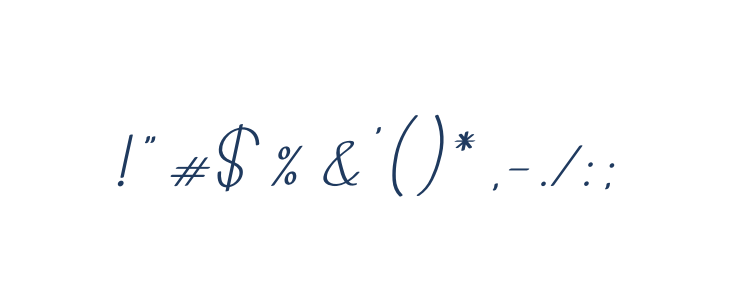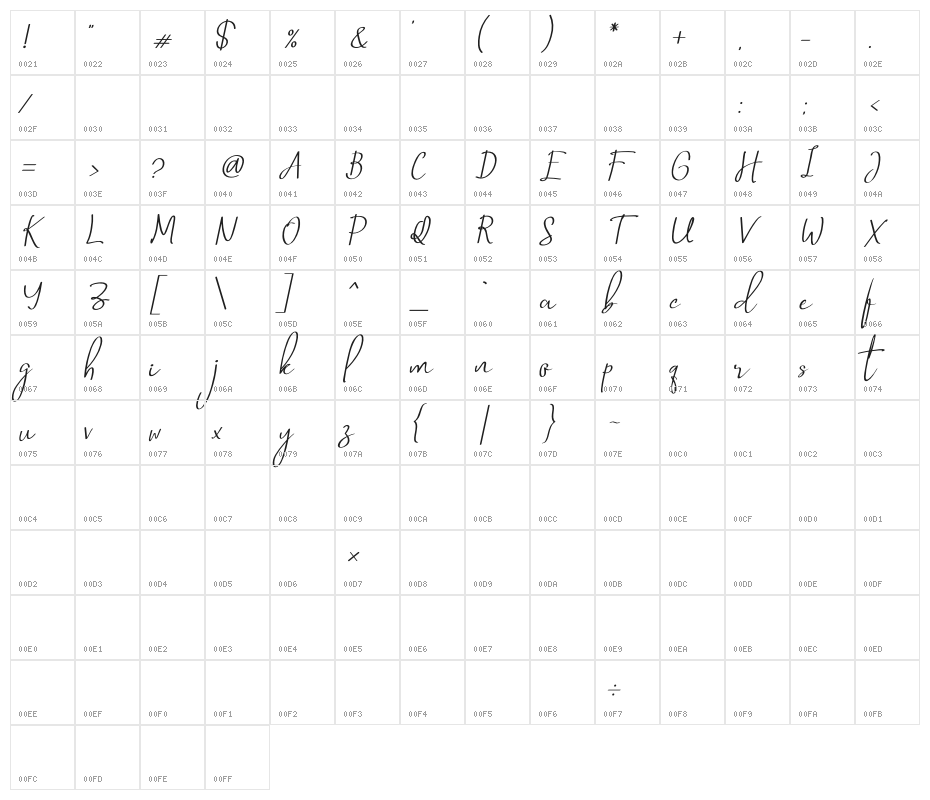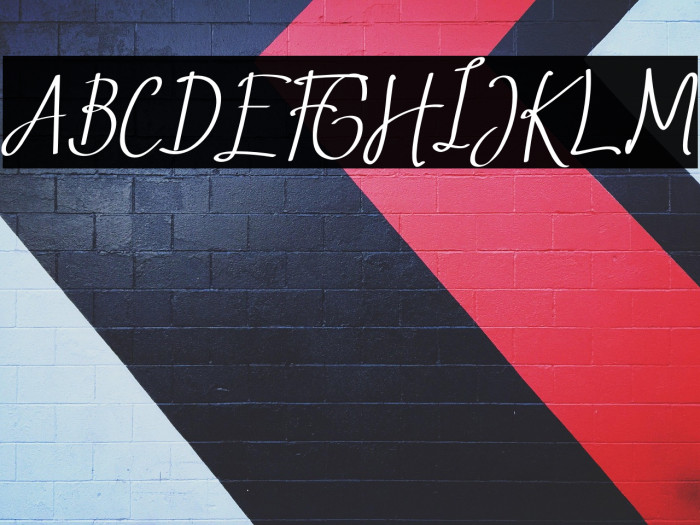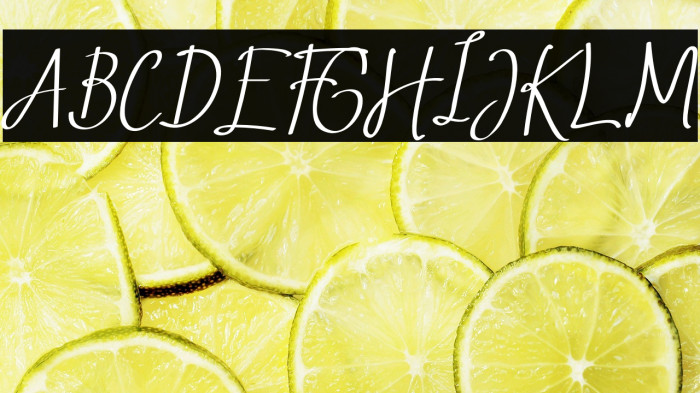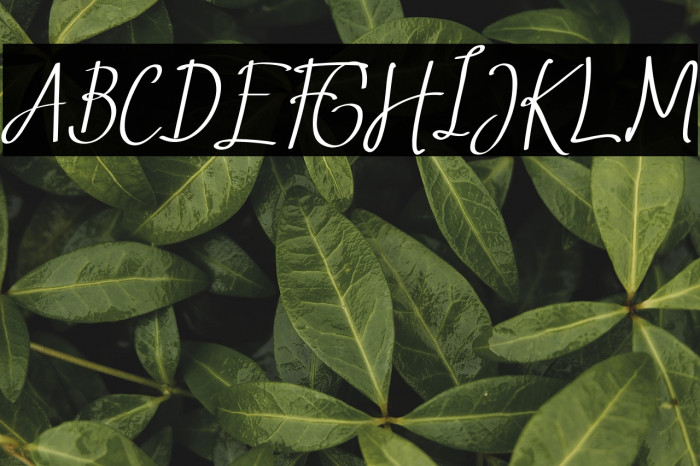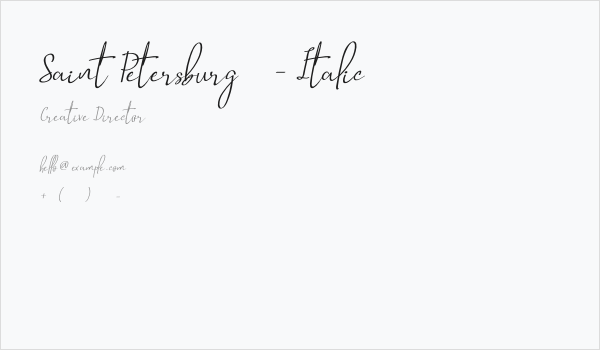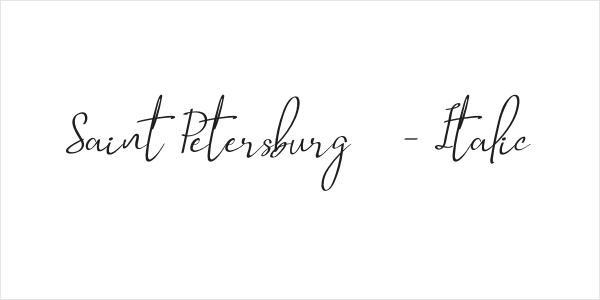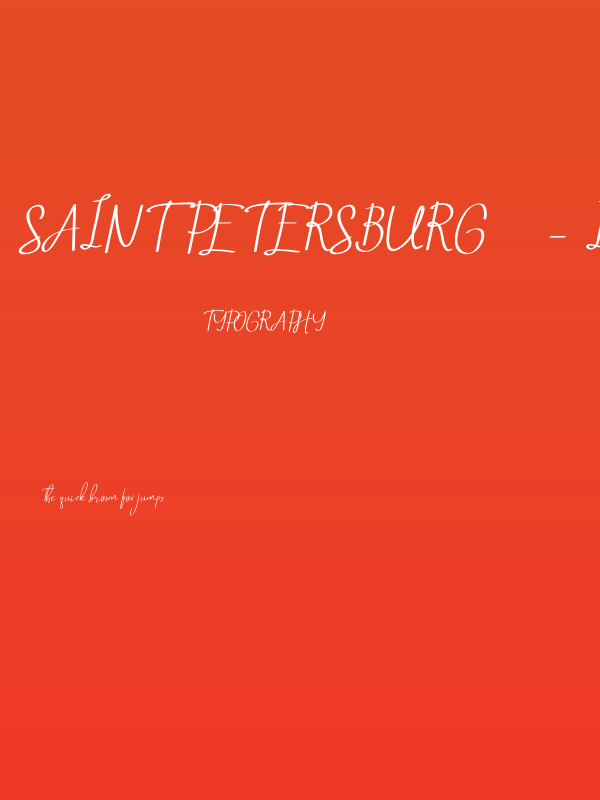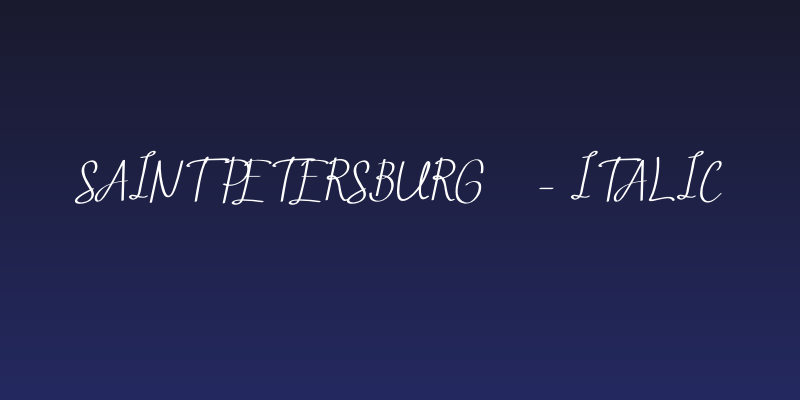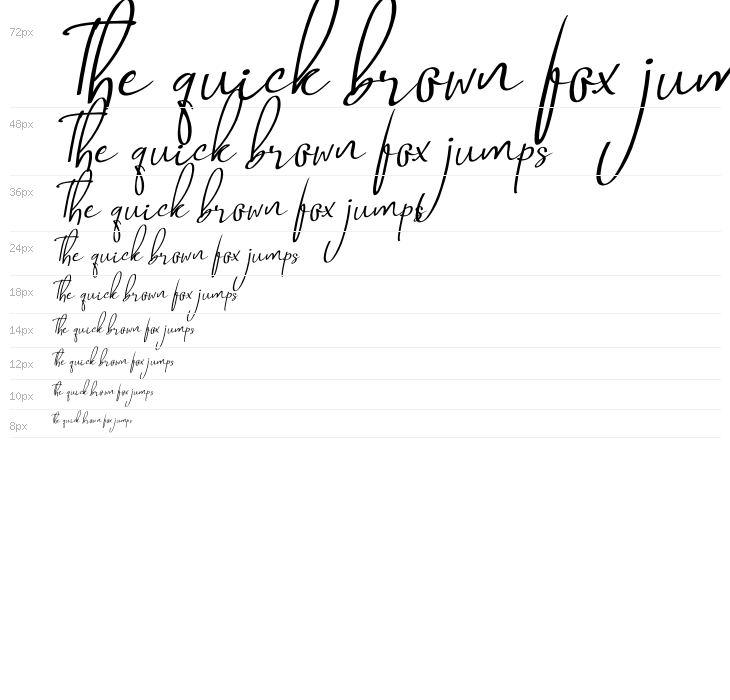
Saint Petersburg 2 - Italic Font
Saint Petersburg 2 - Italic Description
This font features an elegant and flowing script style, characterized by its cursive, handwritten appearance. The letters are connected, with smooth, sweeping curves and a slight slant, giving it an italicized look. The uppercase letters are tall and graceful, while the lowercase letters maintain a consistent flow, enhancing the overall fluidity. The font exudes a sense of sophistication and artistic flair, making it suitable for creative and formal applications. The numerals and special characters are designed to match the script style, maintaining the cohesive aesthetic throughout.
| Overall Style | Elegant, Artistic |
| Proposed Projects | Ideal for wedding invitations, greeting cards, elegant branding, and artistic projects. |